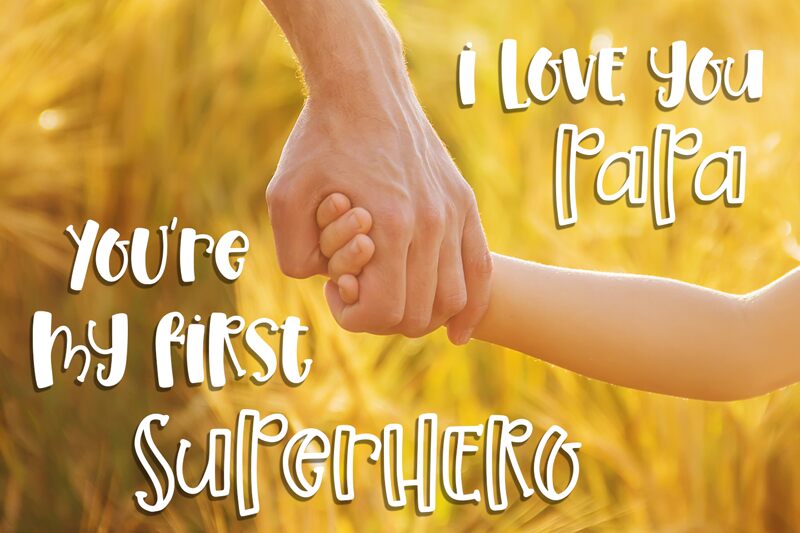
Pumpkin Syrup Solid is a bold and condensed display font designed by Panggah Laksono at Abo Daniel Studio. This fun, cartoon-style font will add a unique, playful touch to any project it's used in. From posters and t-shirts to flyers, logos and banners, let your creativity run wild with Pumpkin Syrup Solid!
Pumpkin Syrup Solid